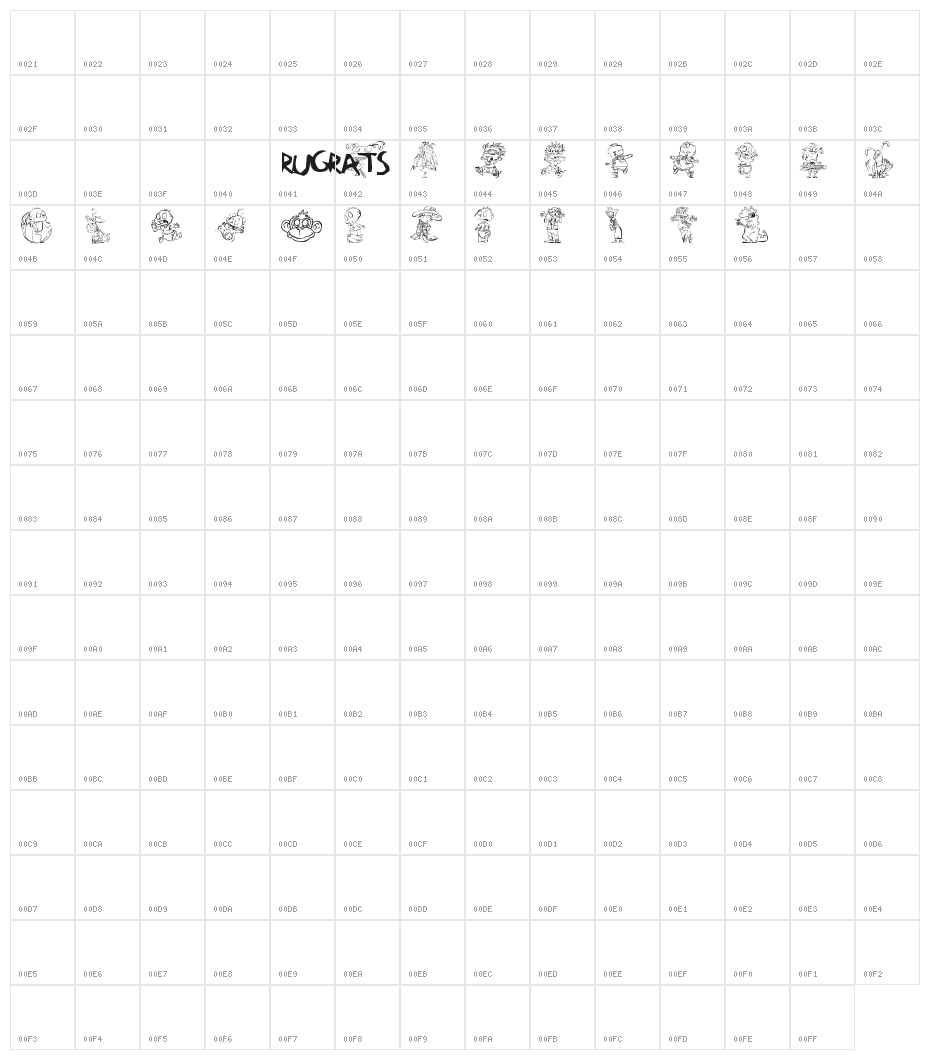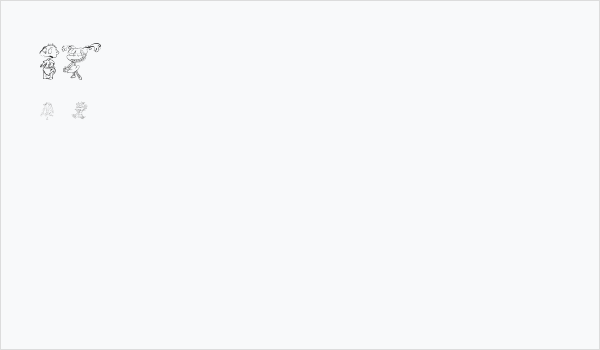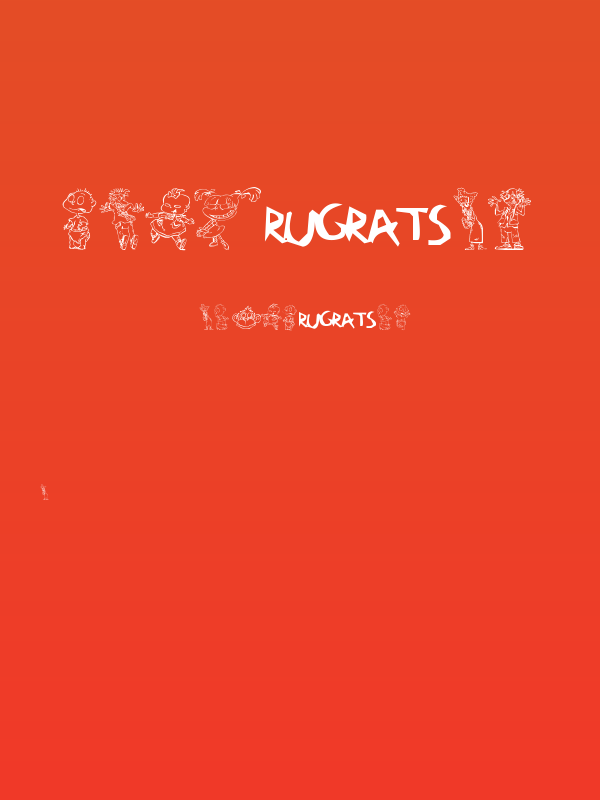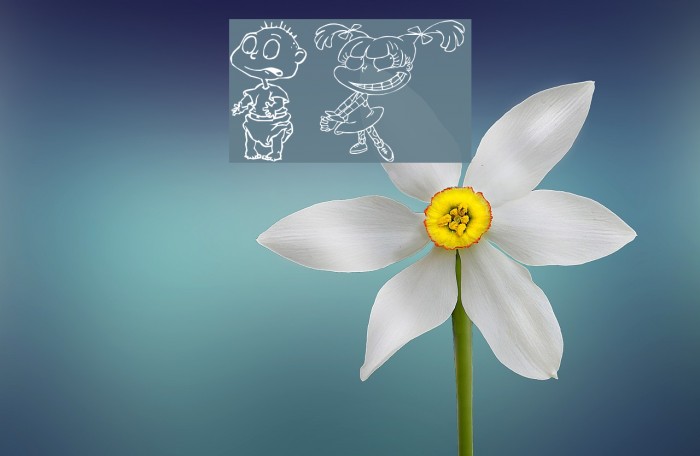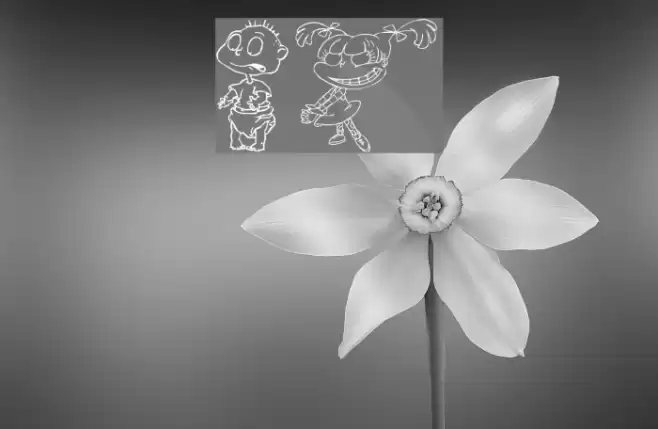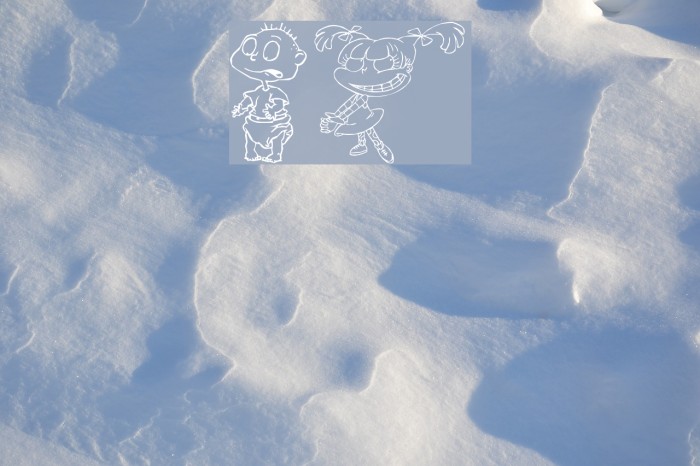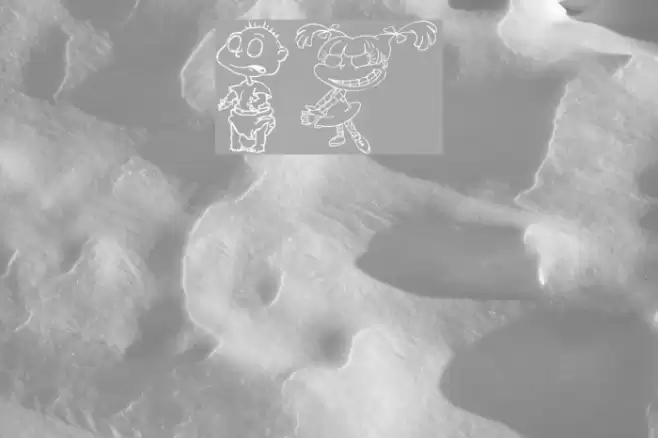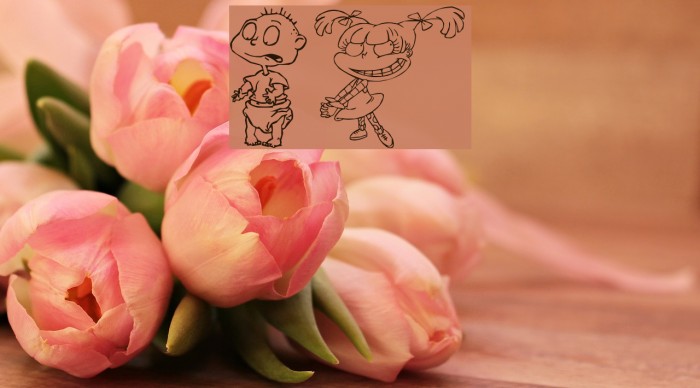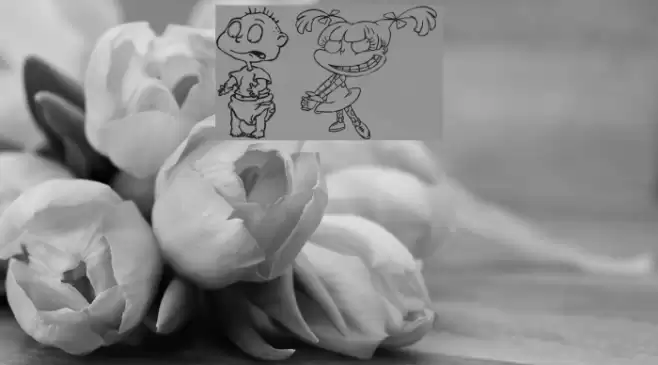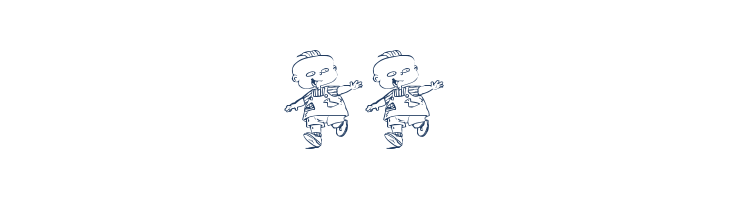
RugBats Font
RugBats Description
This is not a valid font. The image features a collection of cartoon characters and a stylized logo. The characters are drawn in a playful, whimsical style, each with distinct features and expressions. The logo uses bold, irregular lettering that conveys a sense of fun and adventure, typical of animated series branding. The overall composition is more illustrative than typographic, focusing on character design rather than a cohesive font set.
| Overall Style | Playful, Whimsical |
| Use Case | Logos, Illustrations |
| Proposed Projects | This style is suitable for animated series branding, children's book illustrations, or merchandise design. |